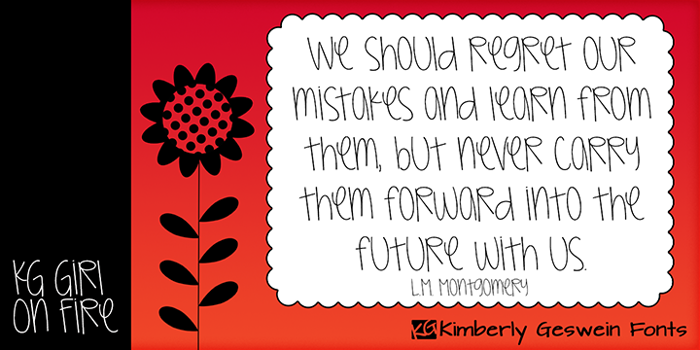
KG Girl On Fire Font
KG Girl On Fire
Cute teen handwriting! Free for personal use. Please pay for commercial use.
cute!
OH MY GOSH I LOVE IT
i love it 2.
I love this!